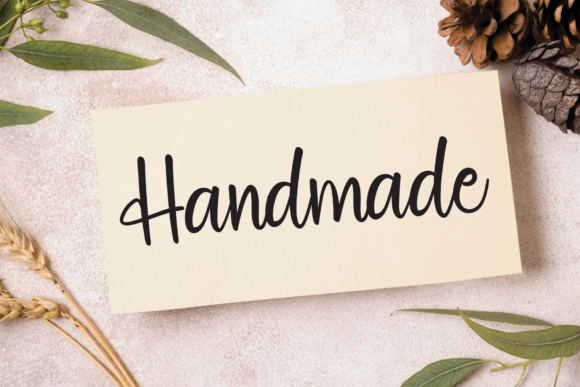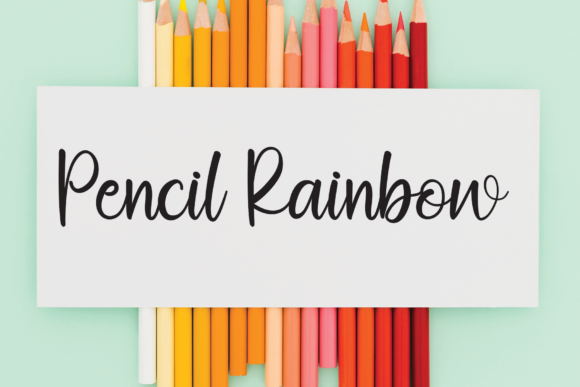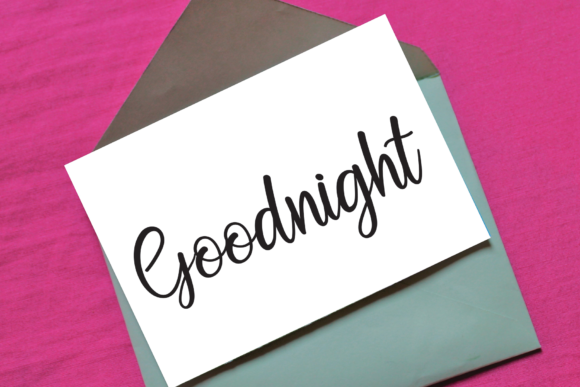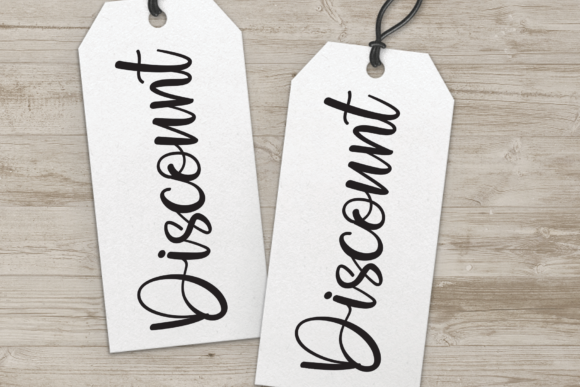
Introduction to Prilly Font
This is a sweet, romantic, and beautiful script font.
It features beautiful curves in each letter This font is PUA coded, which means you can access all the glyphs and sweeps easily.